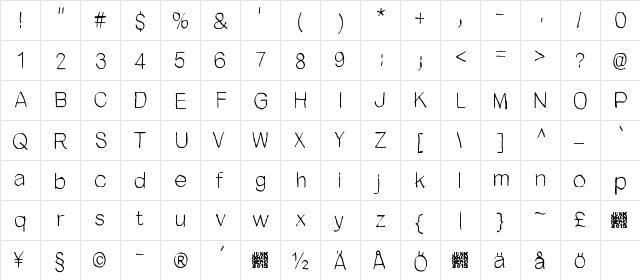
Close your eyes Regular
| Designer | junkohanhero |
Design Context for Close your eyes Typeface
Close your eyes is a composed and adaptable typeface that performs quietly and consistently across a wide range of design contexts.